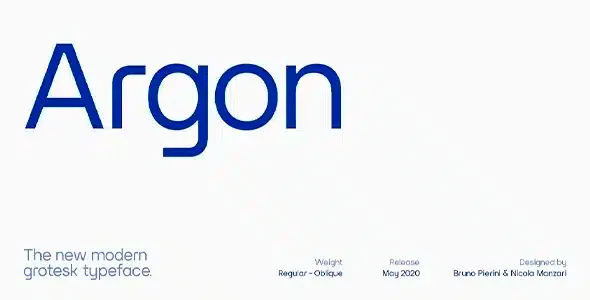
Argon Premium Font
Introducing Argon Premium Font, a modern and grotesque functional font inspired by the aesthetics of 1950s Swiss rationalism.
The solid monolinear design and the combination of pronounced and rounded curves lead to a contemporary interpretation of the classic grotesque look, without compromising legibility, even in small sizes.
Conceptually rationalist, Argon has been designed to emphasize harmonious variations and can be effortlessly applied to a wide range of text uses, from advertising to book design.